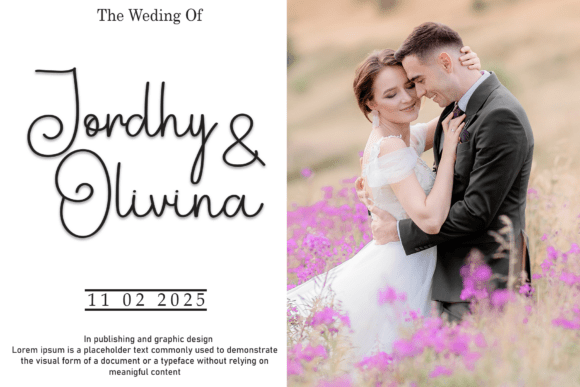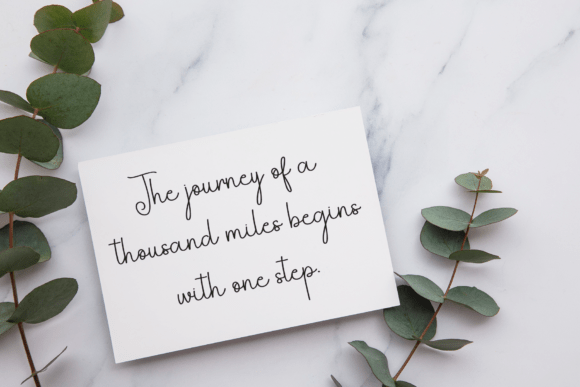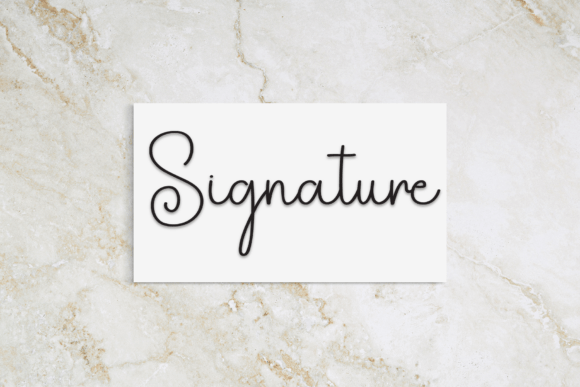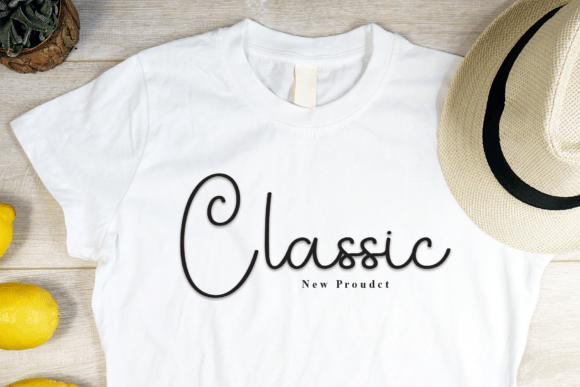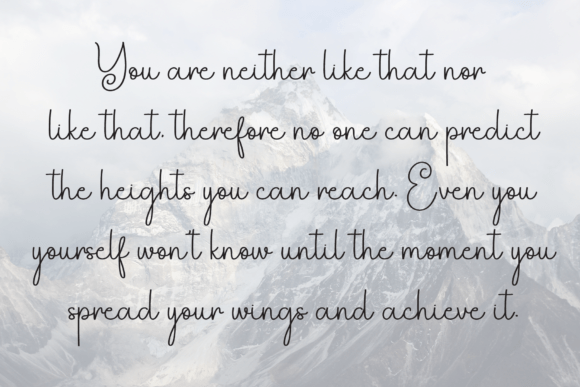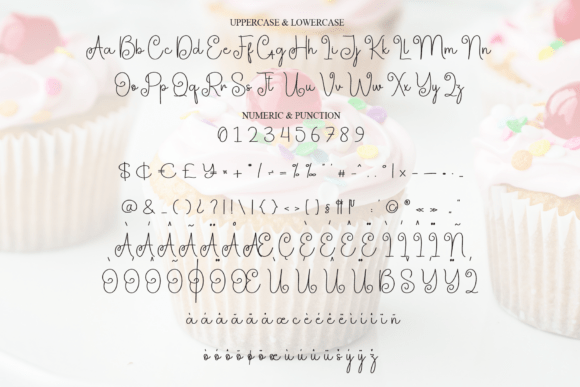
The Sweet Spot: Discovering the Elegance of Cupcake Font
I’ll never forget the time I was working on a wedding invitation project, and my client asked for a font that was both elegant and playful. I scoured the internet, trying out font after font, but nothing seemed quite right. That was until I stumbled upon Cupcake Font. Its smooth, flowing strokes and sophisticated feel immediately caught my eye, and I knew I had found the perfect fit. In this article, I’ll share my experience with Cupcake Font, its features, and how to make the most of it in your designs.
A First Impression: What I Love About Cupcake Font
Cupcake Font is a stylish handwritten script font that radiates elegance and fluidity. Here are some things I love about it:
- ✨ Smooth and flowing strokes: Cupcake Font has a natural, sophisticated feel that’s perfect for branding, invitations, and creative projects.
- ✅ Elegant and refined: The font’s graceful balance of charm and modernity makes it suitable for a wide range of designs.
- 🎨 Highly versatile: Cupcake Font can be used for both digital and print projects, from social media graphics to wedding invitations.
An Honest Review: A Few Quirks to Consider
While Cupcake Font is an excellent choice for many projects, there are a few quirks to keep in mind:
- 🤔 Limited use in body text: Due to its elegant and cursive nature, Cupcake Font may not be the best choice for long blocks of body text.
- ⚠️ Requires attention to spacing: As with any script font, it’s essential to pay attention to spacing to ensure that the text doesn’t become too dense or difficult to read.
- Explore stylistic alternates and swashes to add more flair to your text.
Cupcake Font was designed with the intention of creating a elegant and refined script font that would add a personal touch to any design. The designer aimed to create a font that would be both sophisticated and approachable, making it perfect for a wide range of creative projects.
Q: What type of projects is Cupcake Font best suited for?
A: Cupcake Font is perfect for branding, invitations, and creative projects that require an elegant and refined touch.
Q: Is Cupcake Font suitable for body text?
A: While Cupcake Font is elegant and refined, it may not be the best choice for long blocks of body text due to its cursive nature.